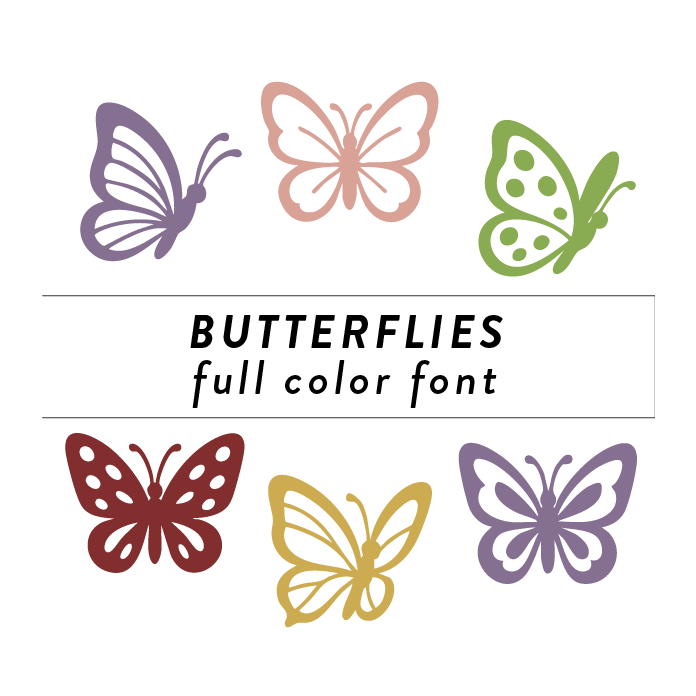
Butterflies 2 Full Color Font is a whimsical and vibrant font design inspired by the beauty of butterflies in a garden. The font features intricate details and a full range of colors, making it perfect for designs related to nature, spring, or whimsical themes. Perfect for adding a touch of charm and playfulness to any DIY project.